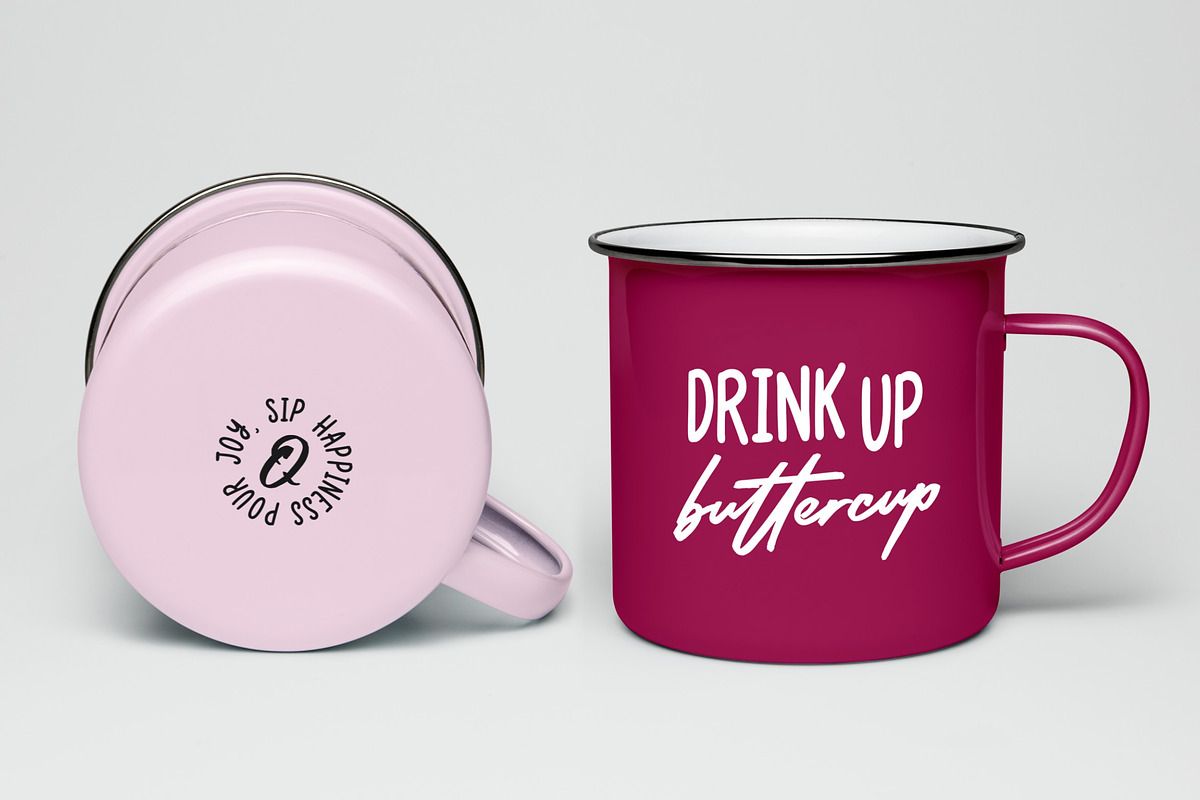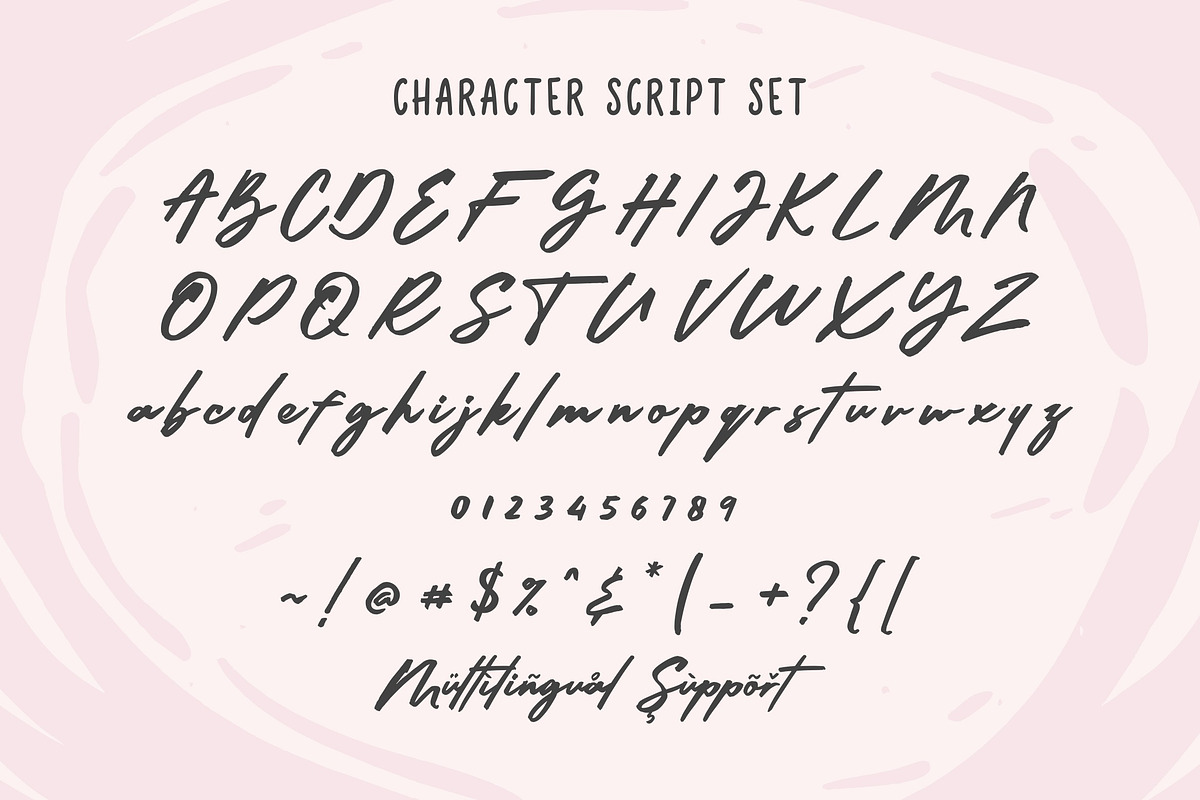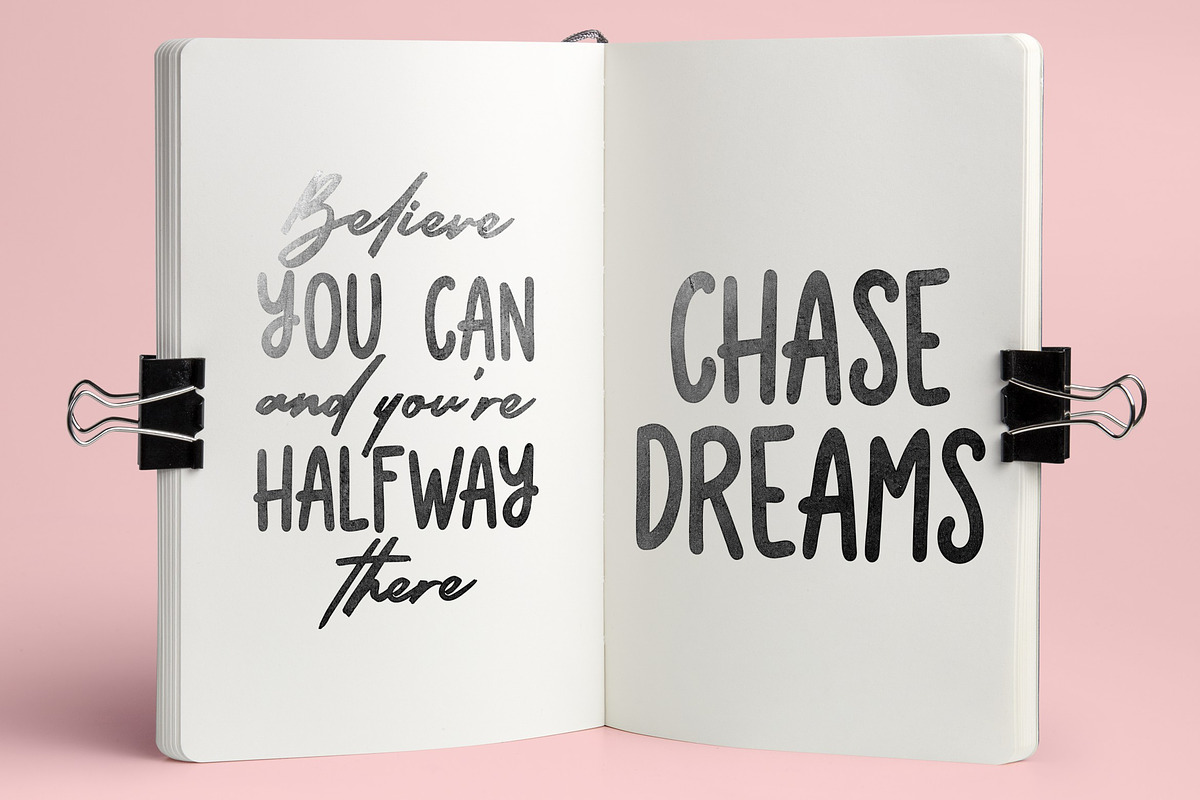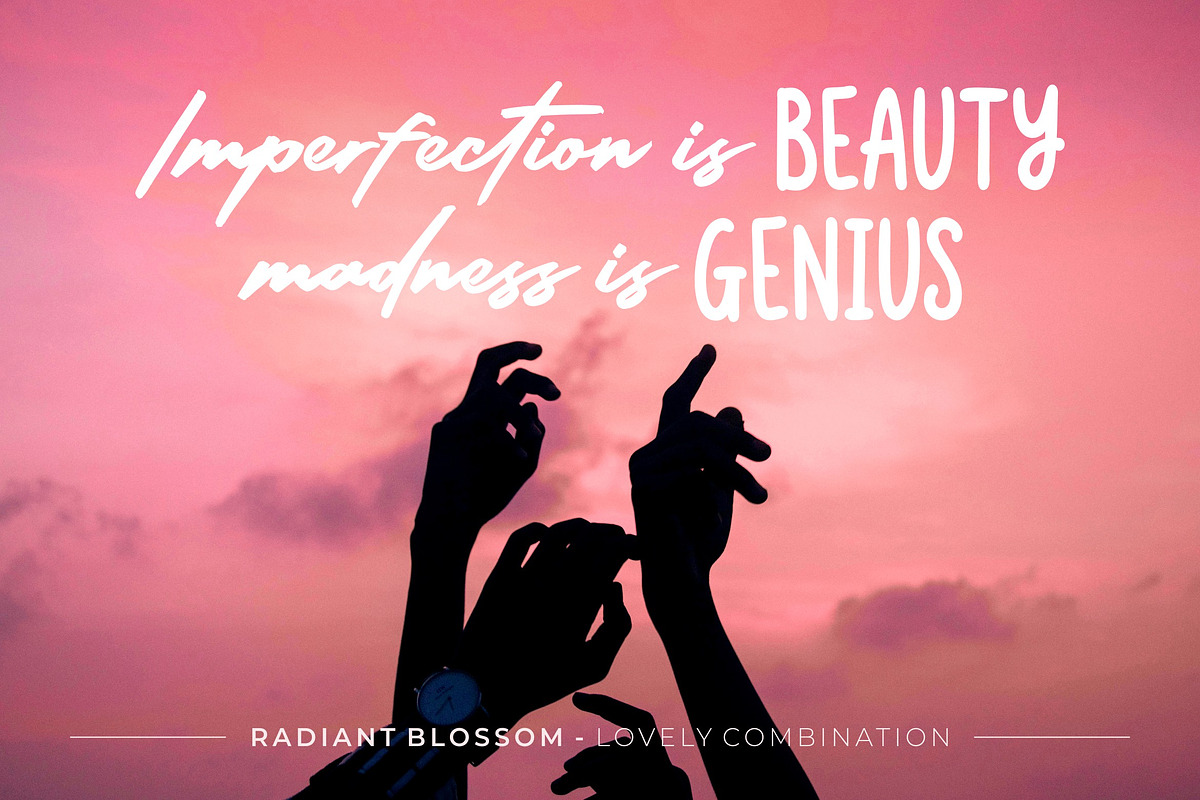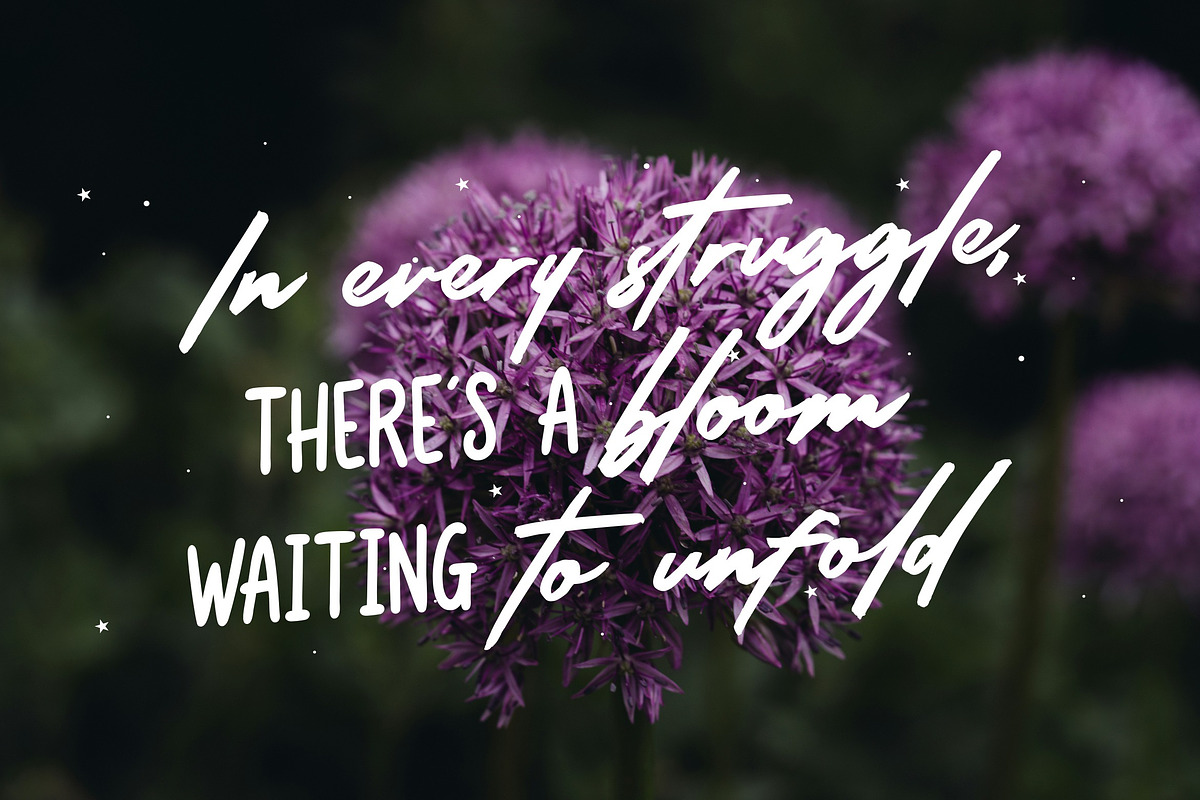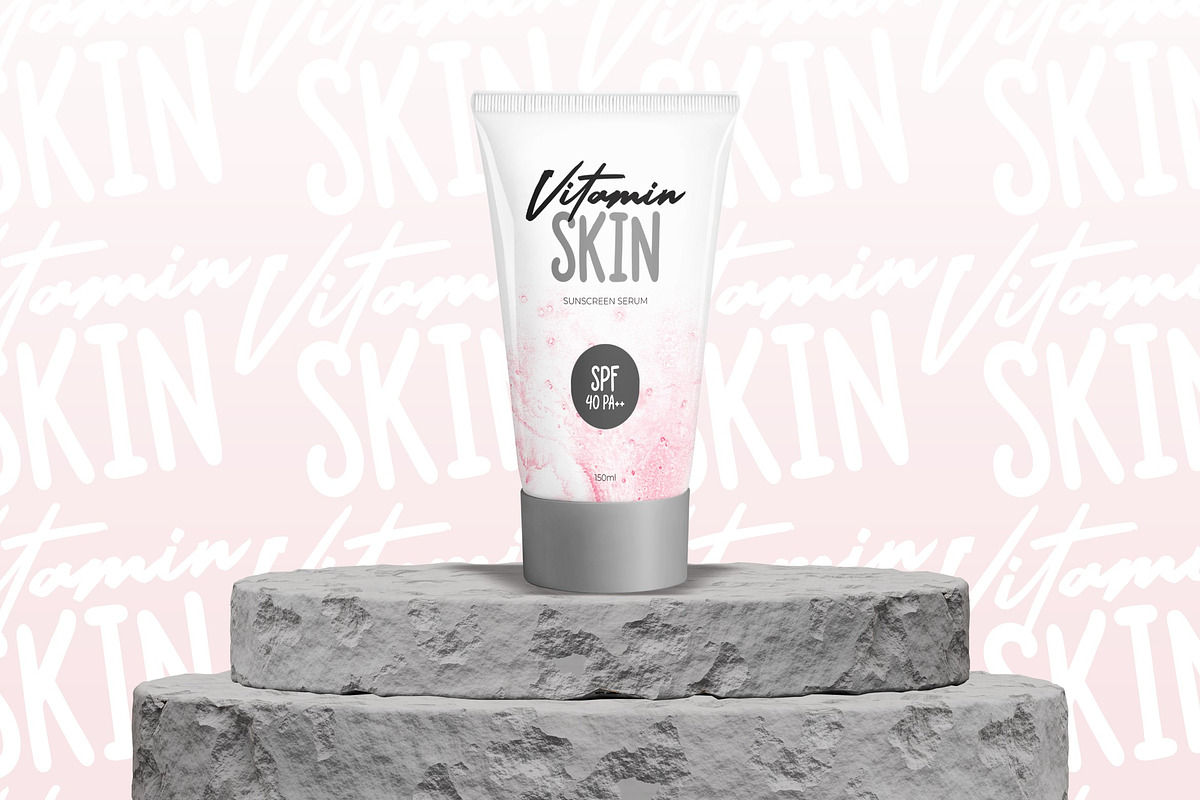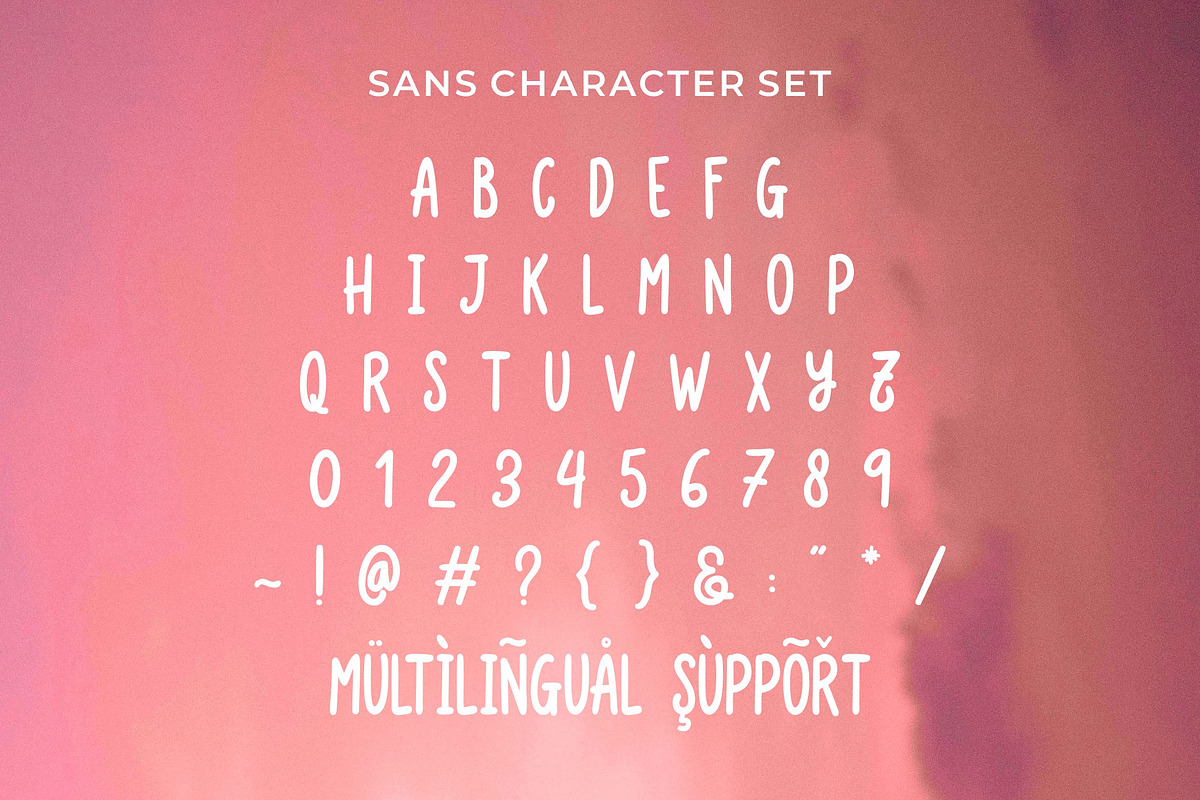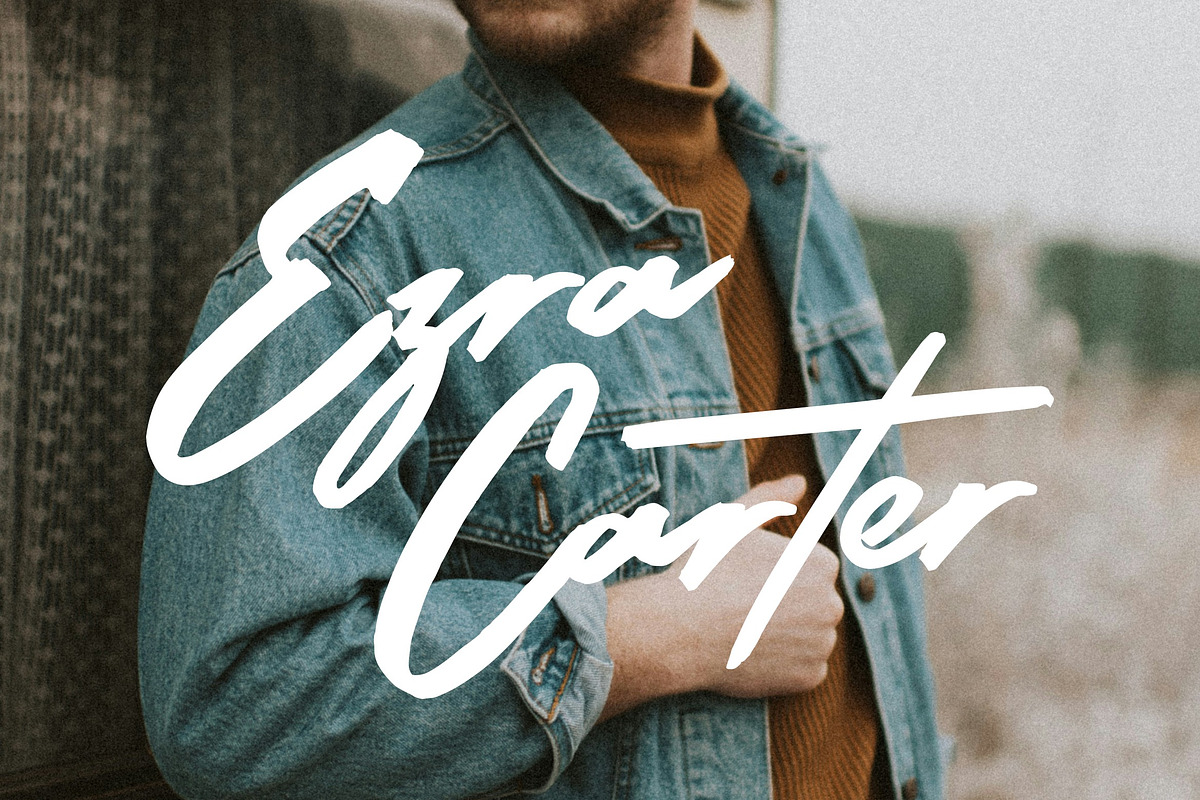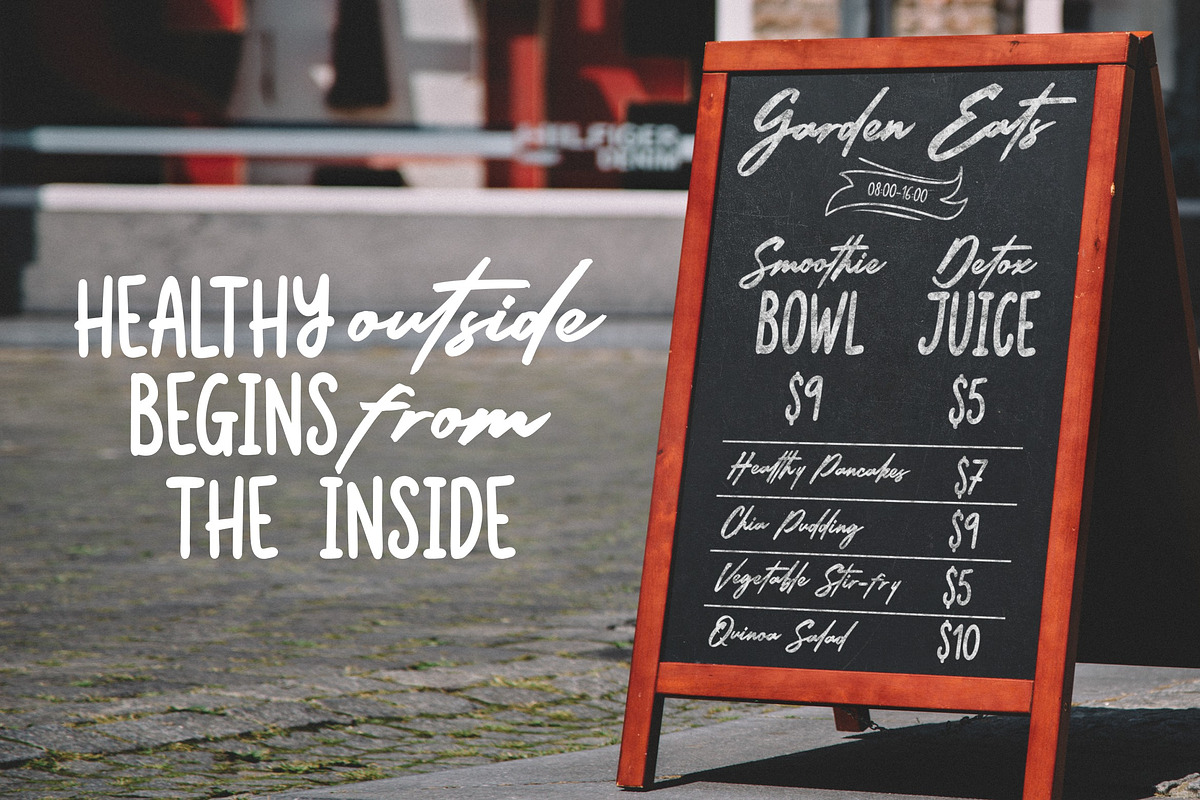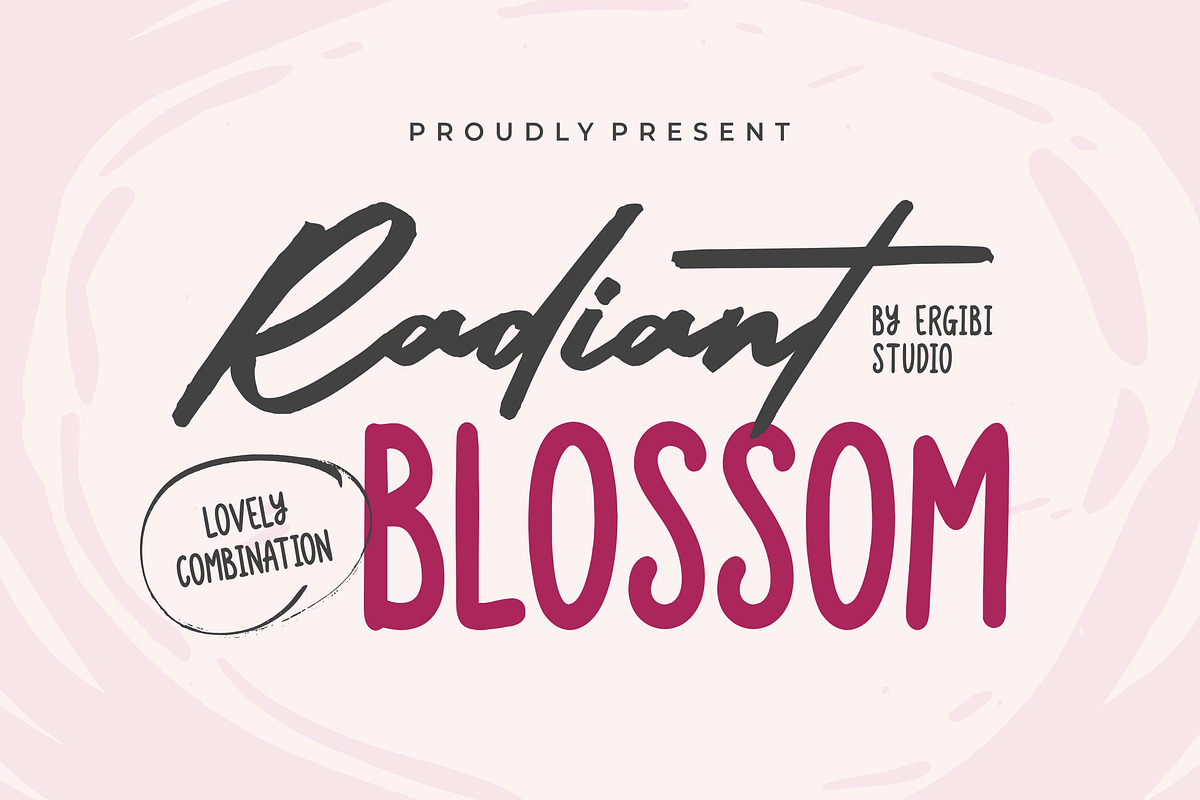
Radiant Blossom - Lovely Combination
Radiant Blossom is a delightful blend of lovely script and playful sans, creating a perfect harmony between elegance and fun. The script brings a charming, romantic flair, while the sans elements add a light-hearted, modern vibe. This versatile font is ideal for invitations, branding, packaging, and social media designs that need both beauty and a touch of joy. Radiant Blossom offers a graceful yet cheerful aesthetic, making it perfect for adding personality to any creative project."